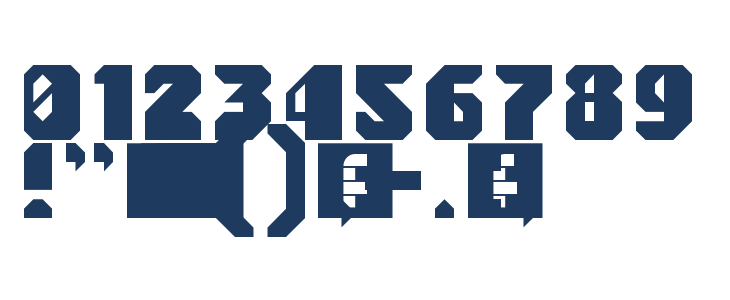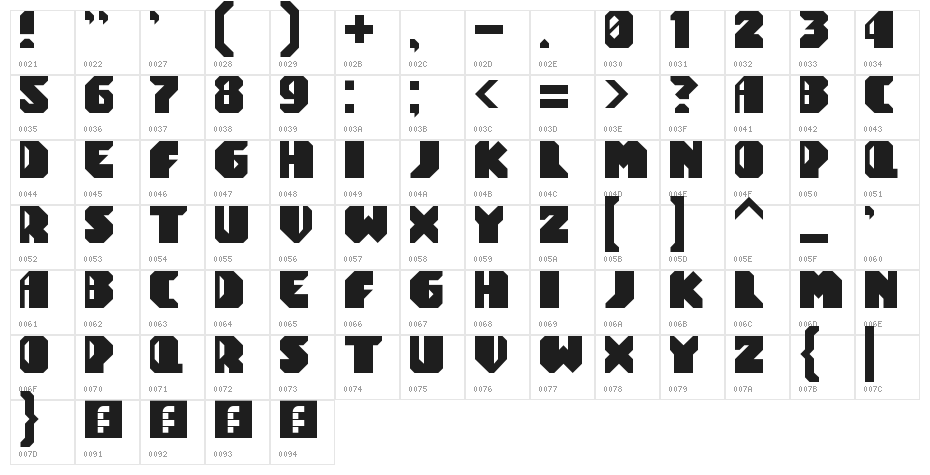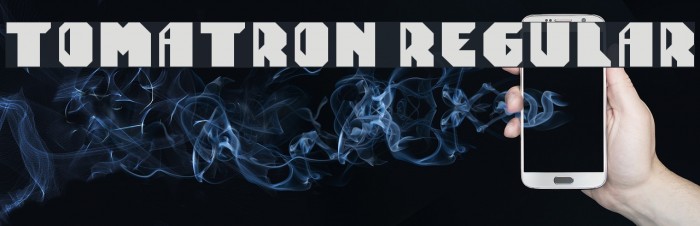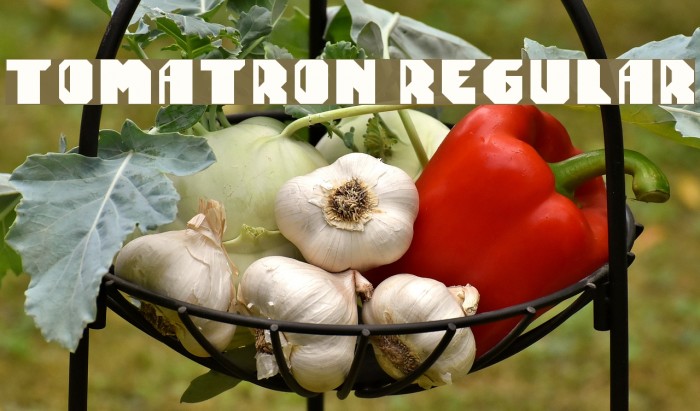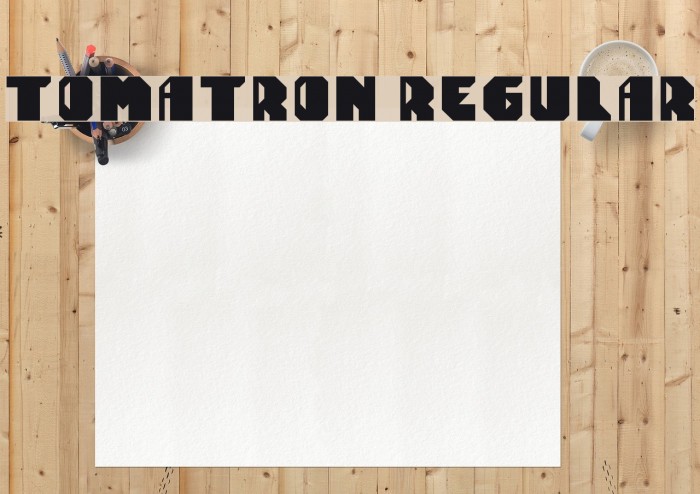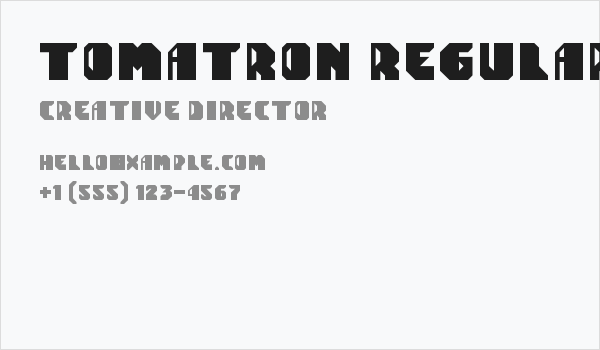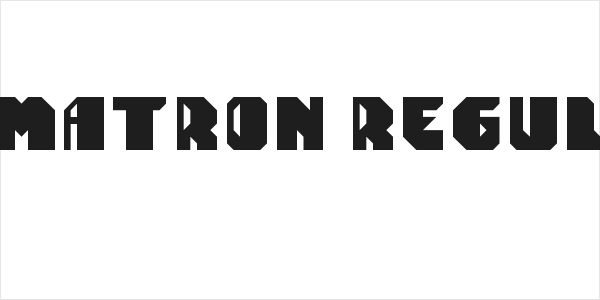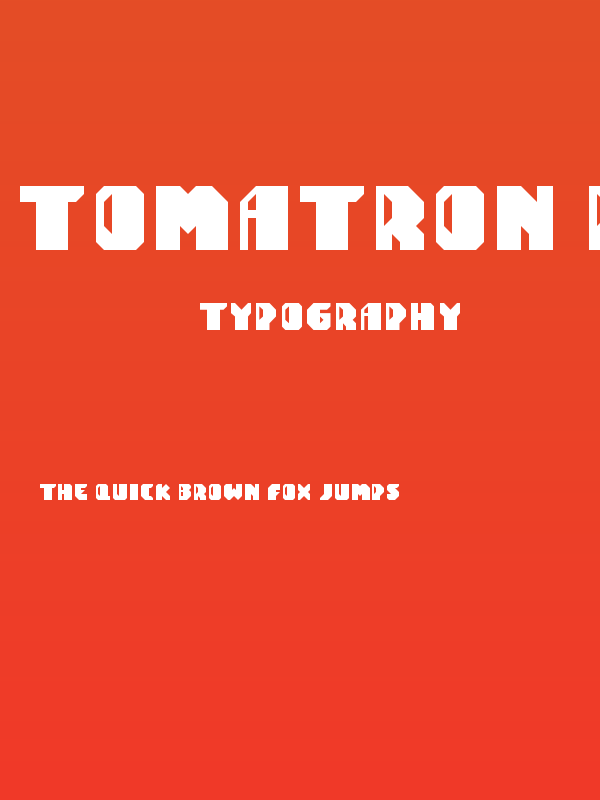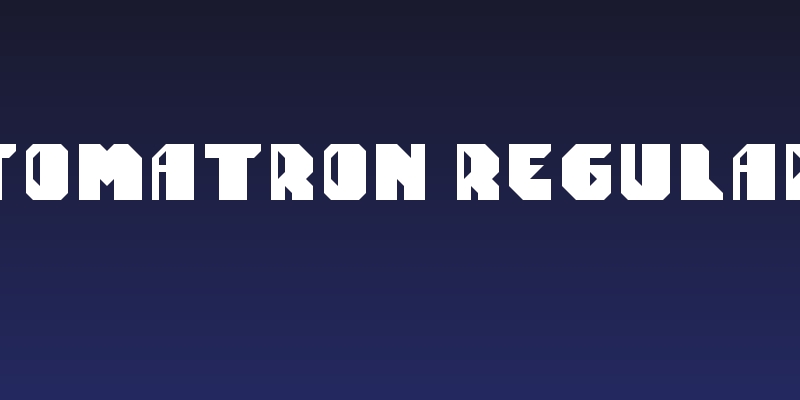
Tomatron Regular Font
Tomatron Regular Description
This font features a bold, geometric style with sharp angles and a futuristic aesthetic. The characters are constructed with thick, block-like forms that convey a sense of strength and modernity. The uppercase and lowercase letters maintain a consistent design, emphasizing symmetry and uniformity. Numbers and special characters follow the same angular theme, providing a cohesive look across all elements. The font's unique style makes it stand out, suitable for projects that require a strong visual impact.
| Proposed Projects | Ideal for sci-fi themed posters, video game titles, technology branding, and futuristic event invitations. |